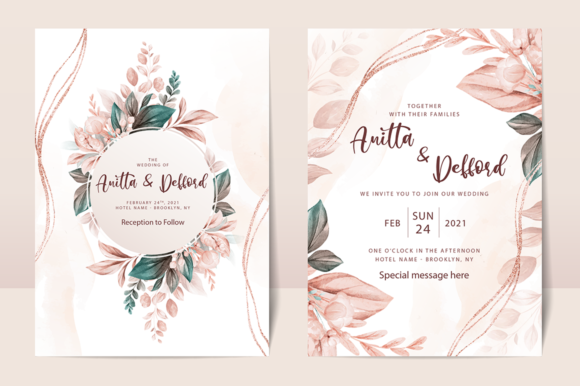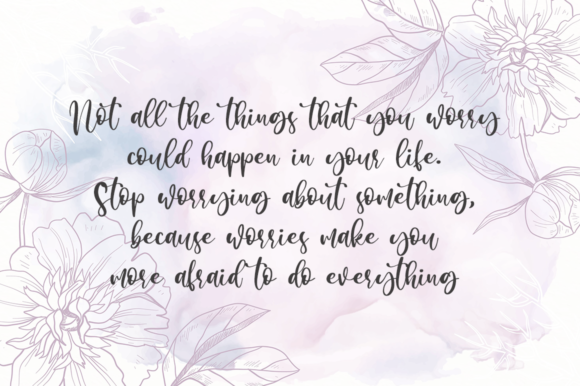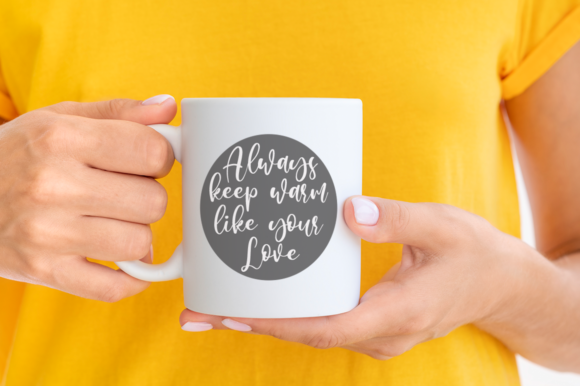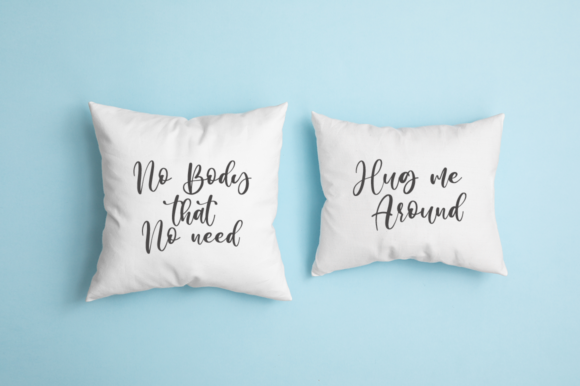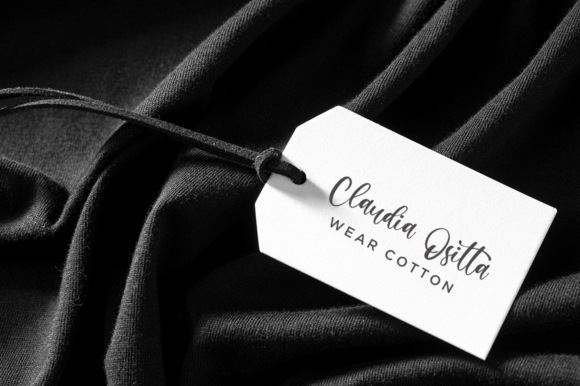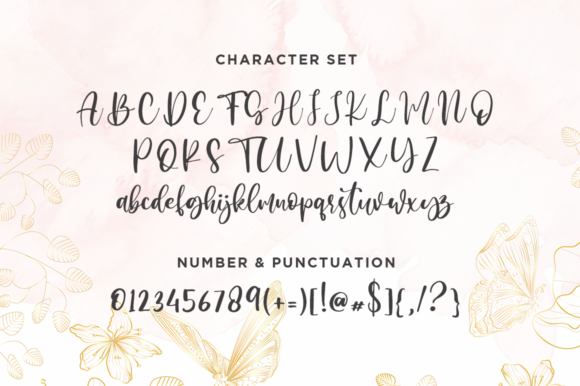
The Sweet Allure of Design
Have you ever found yourself staring at a blank page, waiting for inspiration to strike? For designers, this moment of creative limbo can be a frustrating experience, but it’s also an opportunity to break free from the ordinary and push the boundaries of what’s possible. For those who crave a fresh perspective, the right font can be the spark that sets their imagination ablaze.
Enter the enchanting Candy Butterfly Font, a script font that embodies the essence of elegance and sophistication. Crafted with precision and care, this delightful font is perfect for those who seek a beautiful and refreshing look for their designs. With its delicate strokes and whimsical charm, the Candy Butterfly Font is a valuable addition to any designer’s toolkit.
Candy Butterfly Font Key Features
- Font Family: Candy Butterfly
- Font Size: 256 glyphs, including uppercase and lowercase letters, numbers, punctuation, and special characters
- Unique Characteristics: Whimsical, hand-drawn design with a mix of bold and delicate lines, perfect for creating eye-catching and playful graphics
Candy Butterfly Font Review
Overall, I think the Candy Butterfly Font has a certain whimsical charm that can work well for certain projects. ✨ The delicate, hand-drawn feel of the font can add a touch of sweetness and innocence to designs, making it perfect for children’s books, wedding invitations, or other projects that require a lighthearted tone.
One of the things I like about this font is its versatility. ✨ It comes in a range of weights, from light to bold, which makes it easy to use in different contexts. The font also has a range of alternate characters, including swashes and ligatures, which can add an extra layer of visual interest to designs.
- ⚠️ Limited legibility: In certain situations, the font can be difficult to read, particularly at smaller sizes or in complex layouts.
- ⚠️ Limited compatibility: The font may not work well with certain operating systems or software, which can be a problem for designers who need to ensure cross-platform compatibility.
In terms of overall impression, I think the Candy Butterfly Font is a fun and creative choice for designers who want to add a touch of whimsy to their projects. However, it’s not a font that I would recommend for every project, particularly those that require a more serious or professional tone. With some careful planning and consideration of the font’s limitations, it can be a great addition to a designer’s toolkit.
The Candy Butterfly font is ideal for creating playful, whimsical designs. Use it for:
- Food and dessert labels.
- Wedding and event graphics.
- Magazine and brochure designs.
Alternatives to Candy Butterfly Font
Great Vibes is a beautiful, elegant script font perfect for creating a whimsical and romantic atmosphere. It’s ideal for wedding invitations, baby shower invitations, and other special occasions where a touch of sophistication is required.
Compared to Candy Butterfly Font, Great Vibes is more elegant and refined, making it suitable for more formal events. While Candy Butterfly Font has a playful, childlike quality, Great Vibes is more sophisticated and mature.
Carolyna Pro is a modern, cursive font with a feminine touch. It’s perfect for creating a stylish and elegant look for branding, advertising, and editorial design. Its versatility makes it suitable for a wide range of applications, from fashion to lifestyle.
Compared to Candy Butterfly Font, Carolyna Pro is more modern and sleek, with a stronger emphasis on clean lines and minimalism. While Candy Butterfly Font has a playful, whimsical quality, Carolyna Pro is more refined and sophisticated.